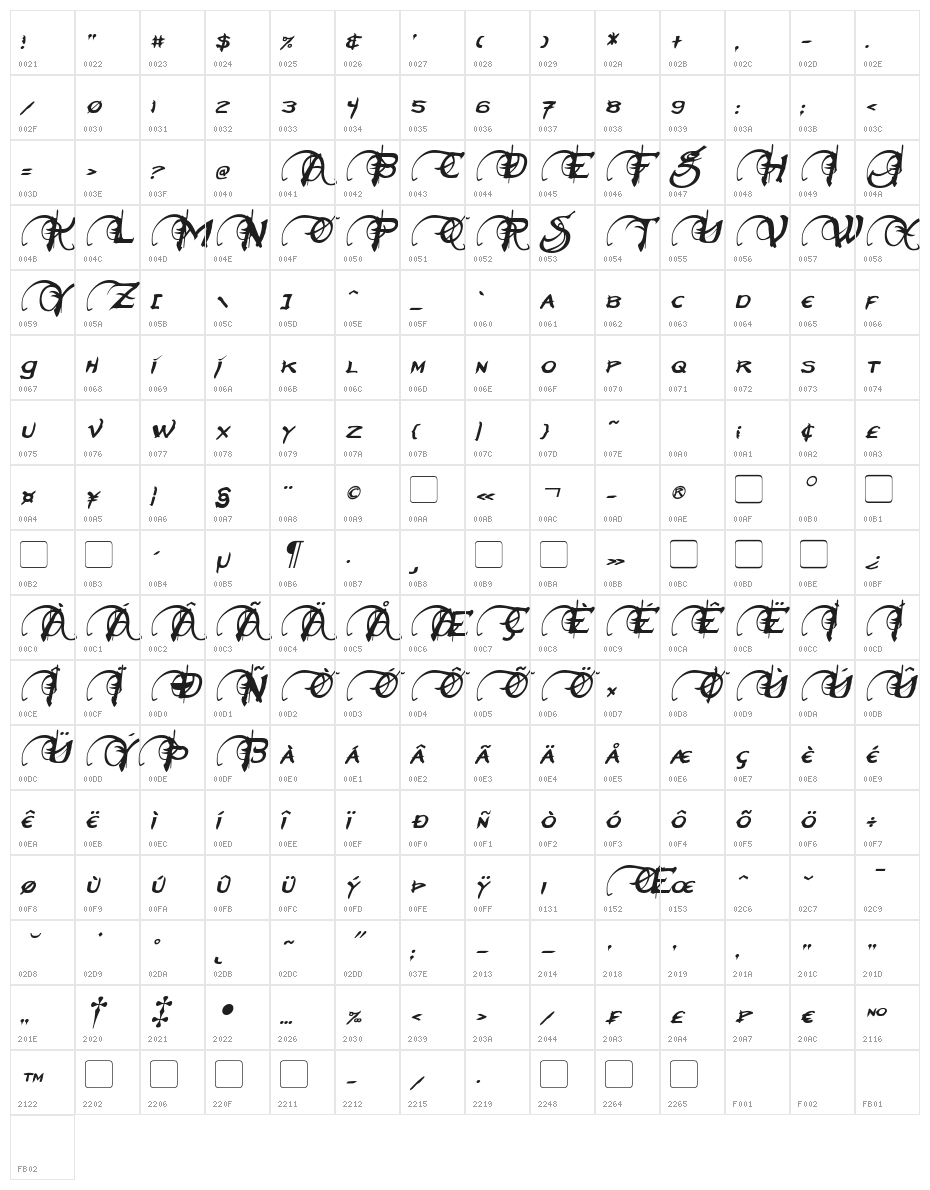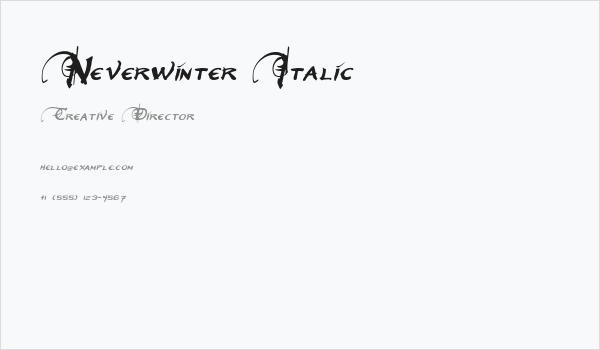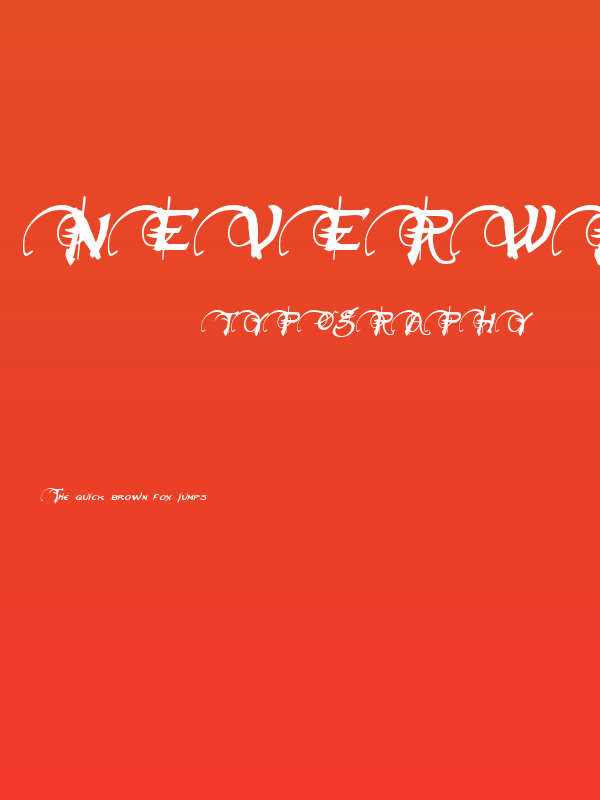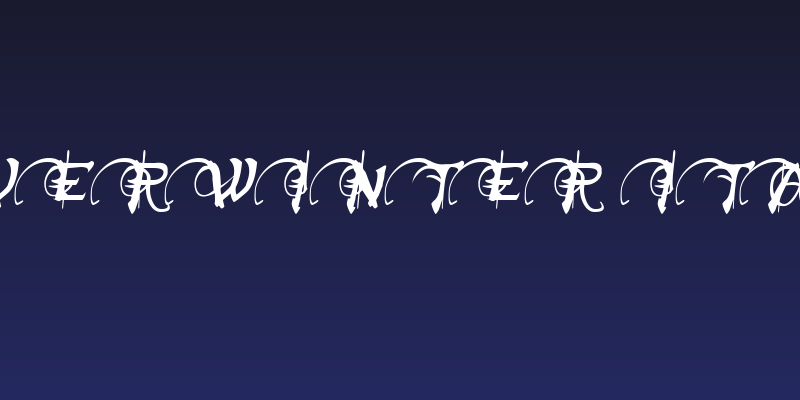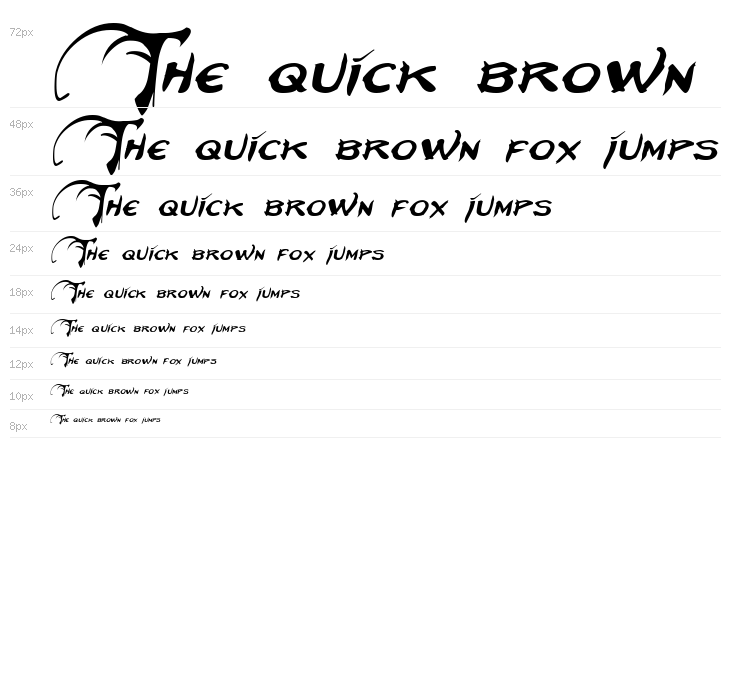
Neverwinter Italic Font
Neverwinter Italic Description
This font features a dynamic and expressive style with a calligraphic influence. The uppercase letters have a distinct flair, with exaggerated curves and strokes that give a sense of movement and elegance. The lowercase letters maintain a consistent flow, complementing the uppercase with their smooth, cursive-like appearance. The numerals are bold and slightly slanted, matching the overall italicized theme. Special characters are creatively designed, adding to the font's artistic appeal. The font's unique style makes it suitable for projects that require a touch of sophistication and creativity.
Use CaseLogos, Artistic projects, Invitations
Proposed ProjectsIdeal for invitations, greeting cards, logos, and artistic posters.